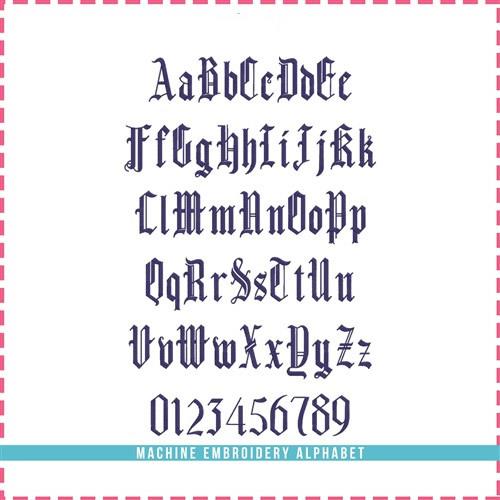
Maya Kreations is happy to present Sharlock Font Embroidery Font - Decorative Serif Lettering - 15 Sizes 0.50" TO 7" - PES, DST & 8 formats machine embroidery font which has Sharlock Font showcases a decorative style combining bold and serif characteristics, ideal for banners and home decor items. This machine embroidery font is available in PES, DST & 8 other formats for versatile crafting. included. If you would like to view more embroidery fonts and alphabets please search our embroidery fonts page.